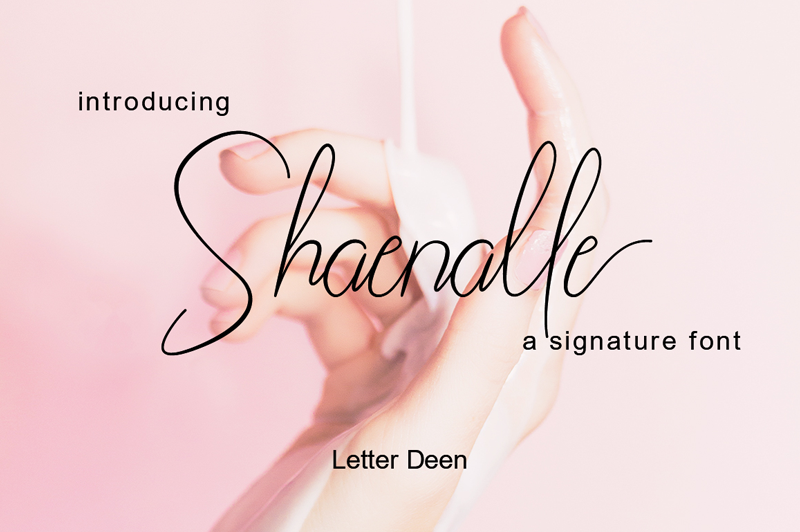
Preview and download Shaenalle Font. Created by Muhammad Wahyudin in Script Handwritten styles with Free for personal use license.
Font name: | Shaenalle |
Author: | Muhammad Wahyudin |
Shaenalle Font is signature script, with sweet touches and beautiful curves on each letter. This font is great for your next creative project. Shaenalle Font is perfect for fashion magazines, product watermarks, wedding designs, social media posts, advertisements, product designs, label product, logo product cosmetics, logo product parfume, photography, invitation, and any projects that need signature taste. NOTE: This demo font is for PERSONAL USE ONLY! But any donation are very appreciated. Paypal account for donation : https://www.paypal.me/wahyudin1886 Link to purchase commercial license : https://thehungryjpeg.com/product/3614535-shaenalle-a-signature-font Thank you. |